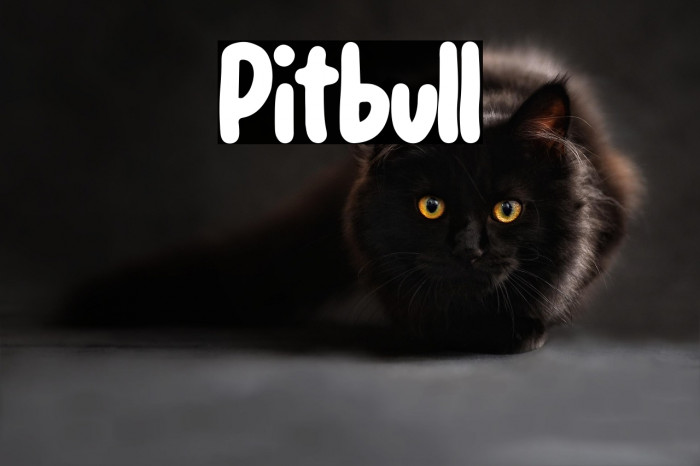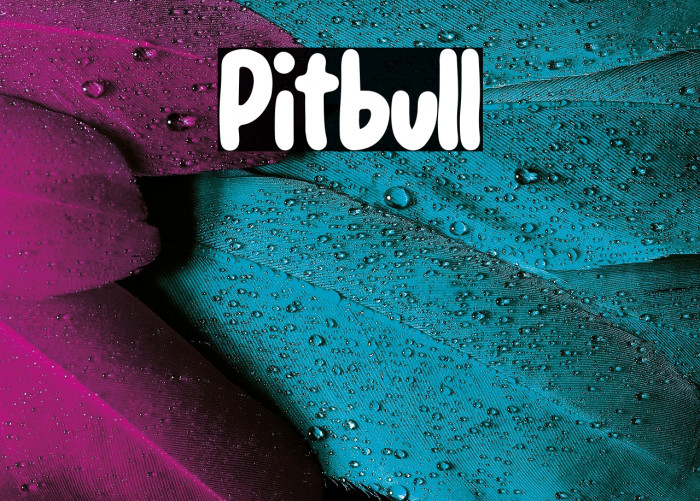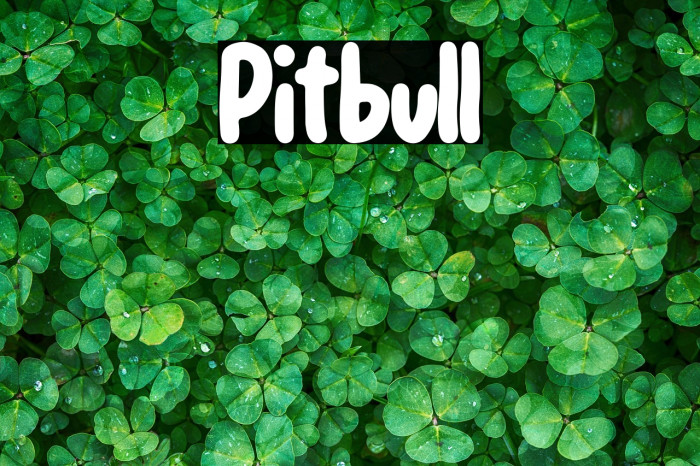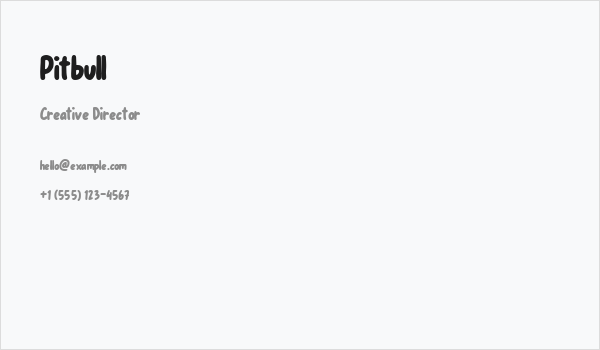
Pitbull Font
Pitbull Description
This playful and bold font features rounded, thick strokes that give it a friendly and approachable appearance. The characters are slightly irregular, adding a hand-drawn, whimsical feel. The uppercase and lowercase letters maintain a consistent style, with a slight slant that suggests movement and energy. The numbers and special characters are equally bold and maintain the same playful aesthetic, making them stand out. This font is perfect for projects that require a fun and lively touch, such as children's books, playful branding, or eye-catching posters.
| Proposed Projects | Ideal for children's books, playful branding, posters, and any project needing a fun, lively touch. |